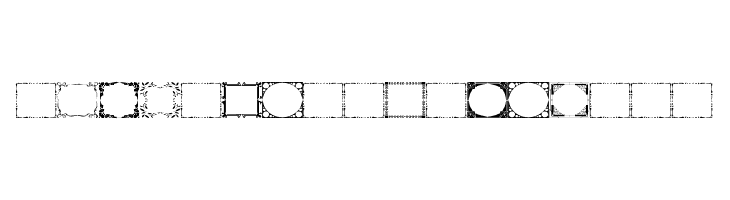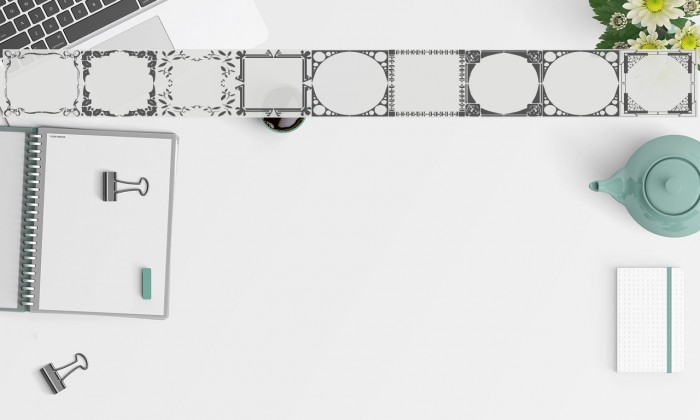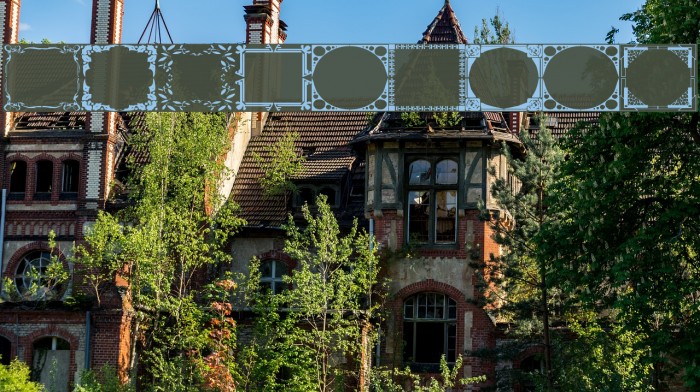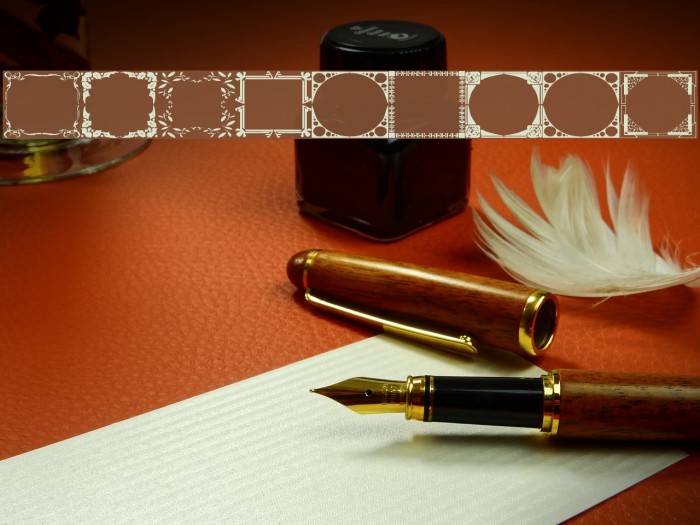
Vintage Frames 10 Font
Vintage Frames 10 Description
This is not a valid font. The image contains decorative frames and borders, which are not suitable for typographic use. These elements are designed for ornamental purposes, featuring intricate patterns and vintage aesthetics. They are likely intended for use in design projects that require decorative accents rather than text representation.
The image contains decorative frames, not a font from Uncategorized fonts.
- Proposed Projects: Use these decorative frames for invitations, certificates, or vintage-themed design projects.
- Overall Style: Vintage
- Use Case: Decorative elements for design projects.